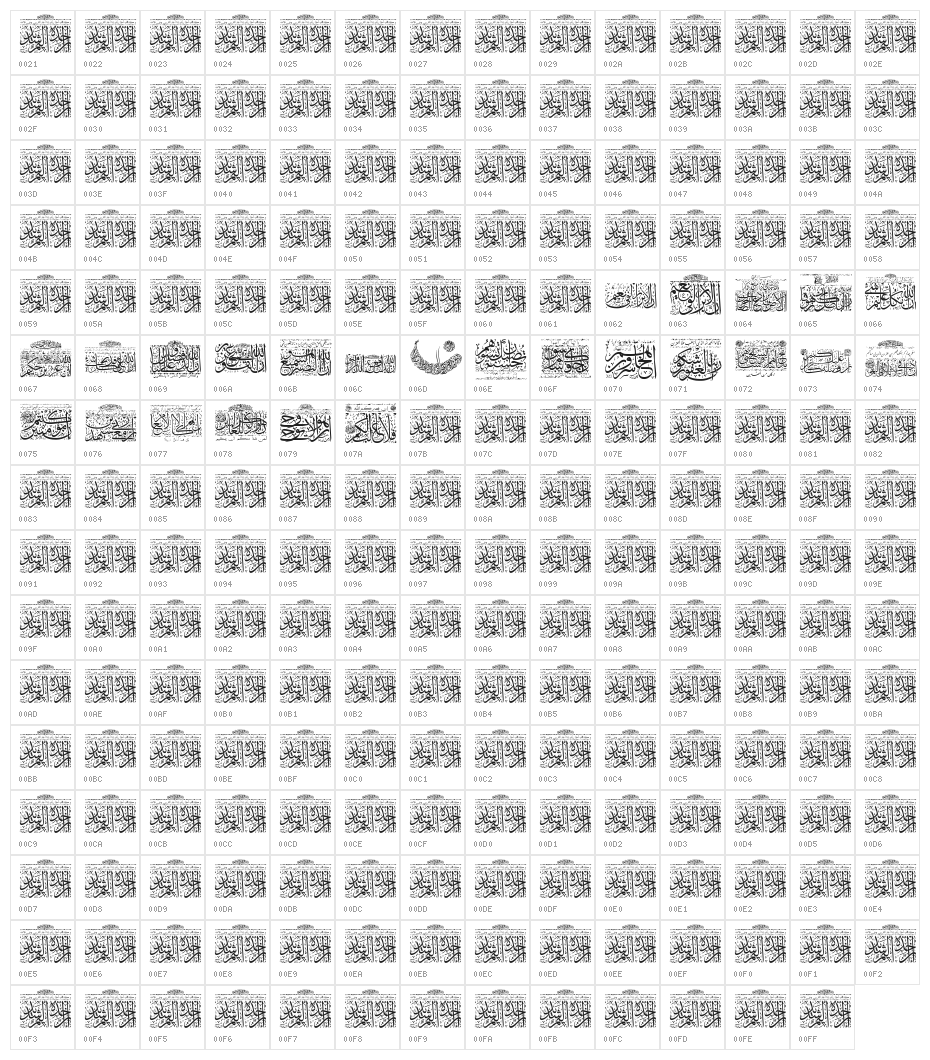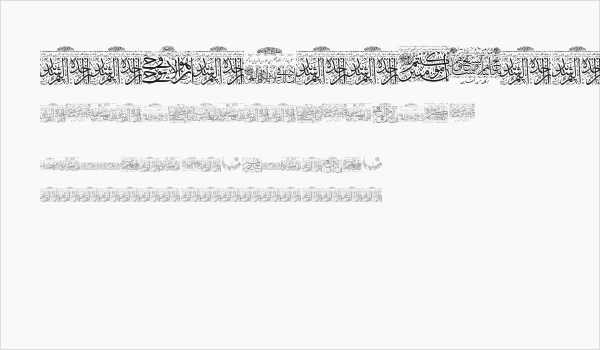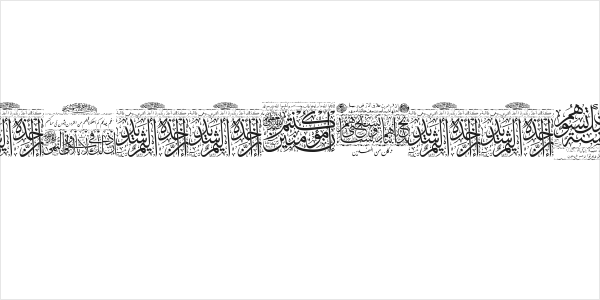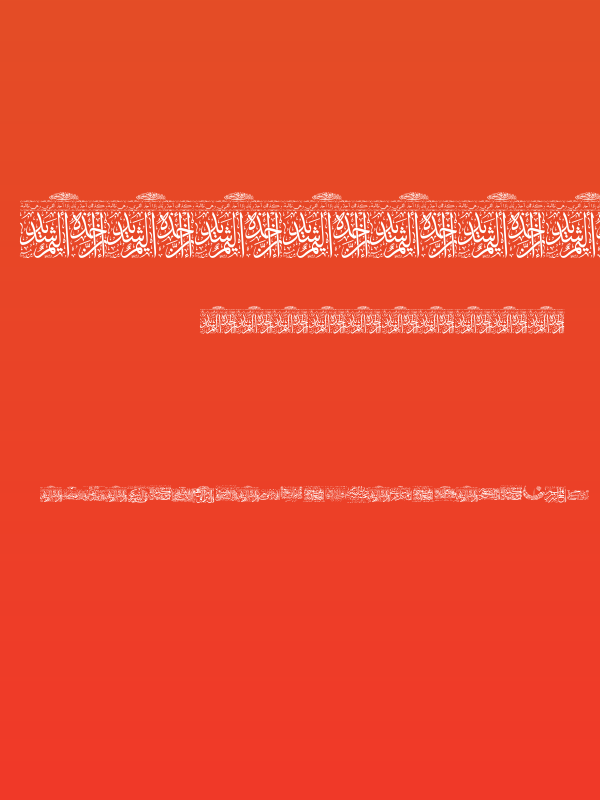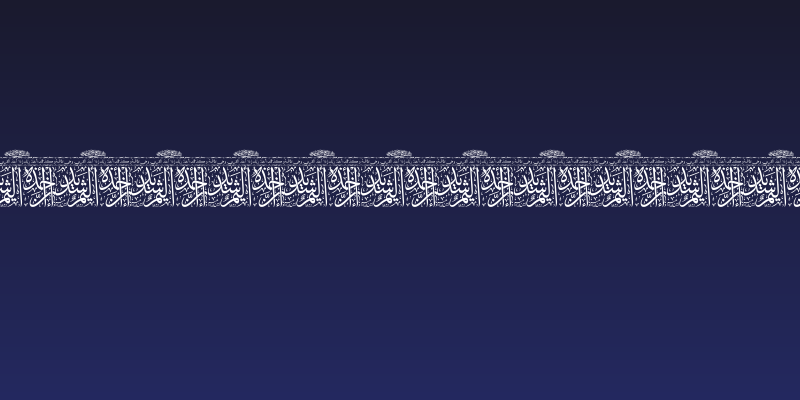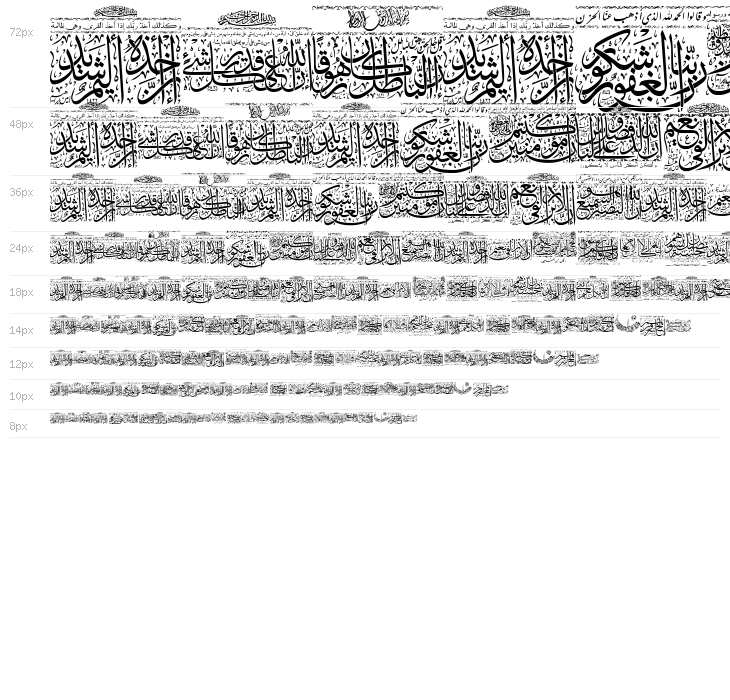
Aayat Quraan 23 Font
Aayat Quraan 23 Description
Highly decorative Arabic calligraphy with intricate detailing and ornamental flourishes, featuring bold strokes and complex ligatures, commonly used in religious or ceremonial contexts.
| Overall Style | Decorative, Traditional, Religious |
| Use Case | Religious texts, Art pieces, Ceremonial headings |
| Proposed Projects | Religious manuscripts, ceremonial documents, artistic prints, architectural inscriptions. |